Here is a letter that has a strange path: it seems almost immutable and universal as it looks so similar once it arrives in each alphabet. And the best part is that she is really the embodied concept of writing, the meta goddess Seshat. She is the memory of all things, the guarantor of rectitude and truth, at least for the Egyptian genesis.
She shows benevolent neutrality, because if you can write anything, it’s when you read that you make your intelligence work. Her hand became the letter and not her headdress, a crown with seven branches, one for each creative word, surrounded by royal horns. It must be admitted that it would not have been easy to write.
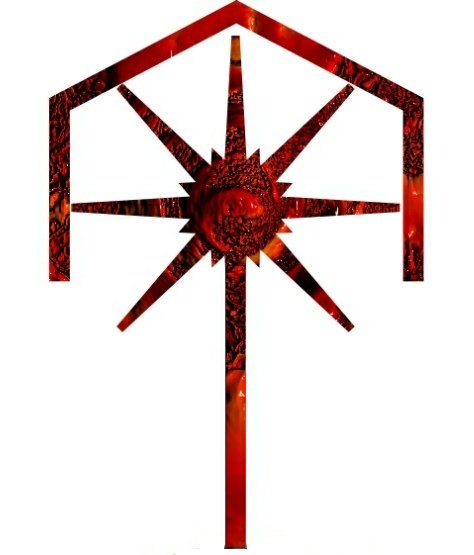
However, this very powerful symbol has not been lost, it embellishes the tops of decorative or votive obelisks, such as the one that adorned the center of the Circus Maximus in Rome and that can be admired in St. Peter’s Square in the Vatican, always equipped with this heptagram of Egyptian mysticism.